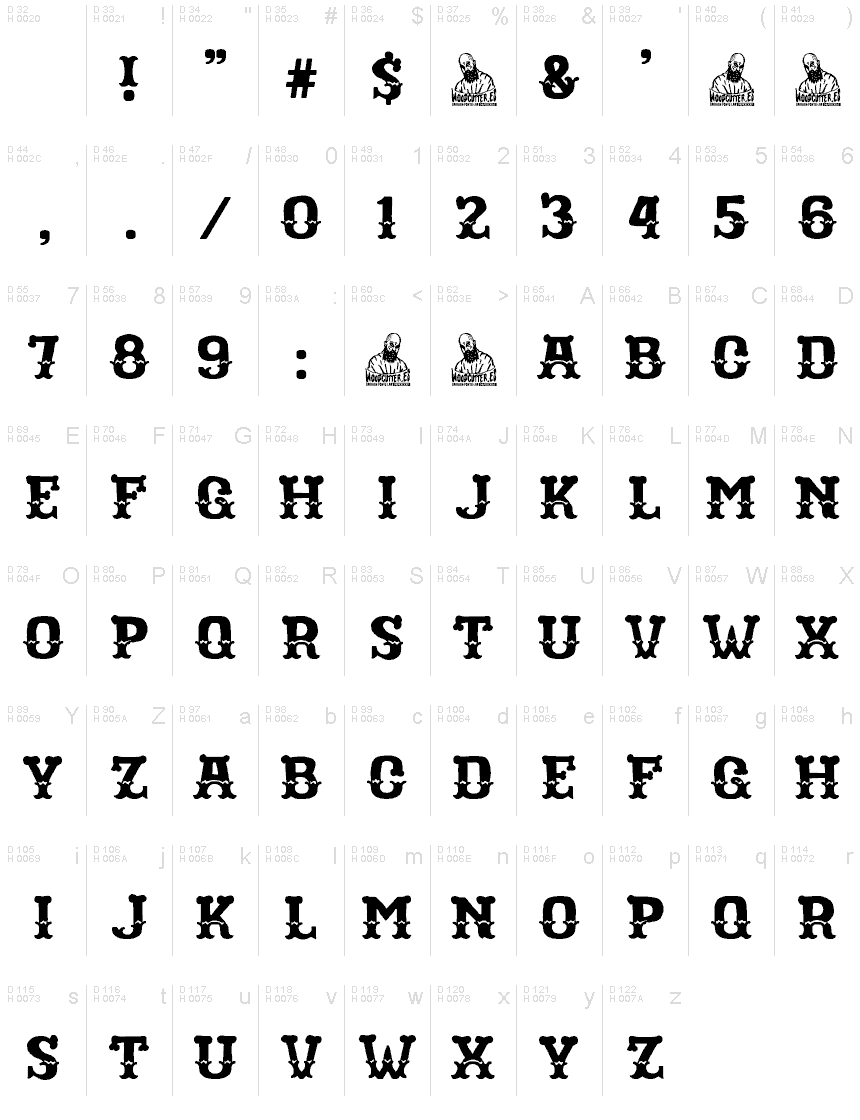
The Last Circus
The Last Circus font by Woodcutter is a display typeface with an ornate design that turns every letter into a show. Retro in style, bold in weight, and decorative in detail, this vintage charm font carries theatrical elements that hold an overall Victorian appearance users won’t be able to resist.
Heartfelt creations of love go all the way with The Last Circus. The free font can bring a new perspective to postcards and invitations for those romantic engagements or wedding ceremonies. Go visual and use it for posters, comics book covers, video game designs, magazine prints, T-shirt designs as well as advertisements. Use the font for branding purposes whether the brand belongs to you or to your own circle of clients.